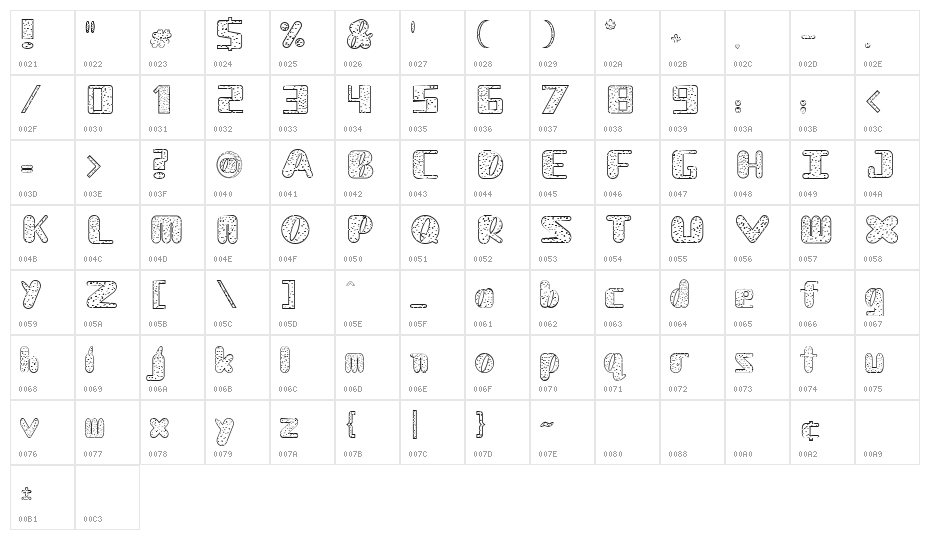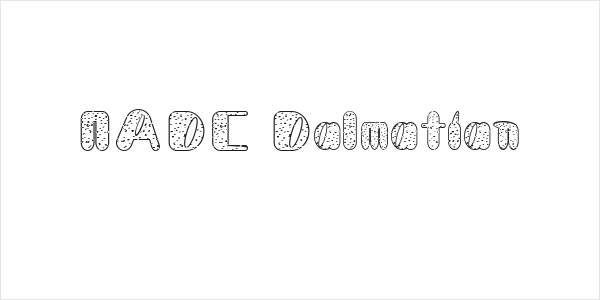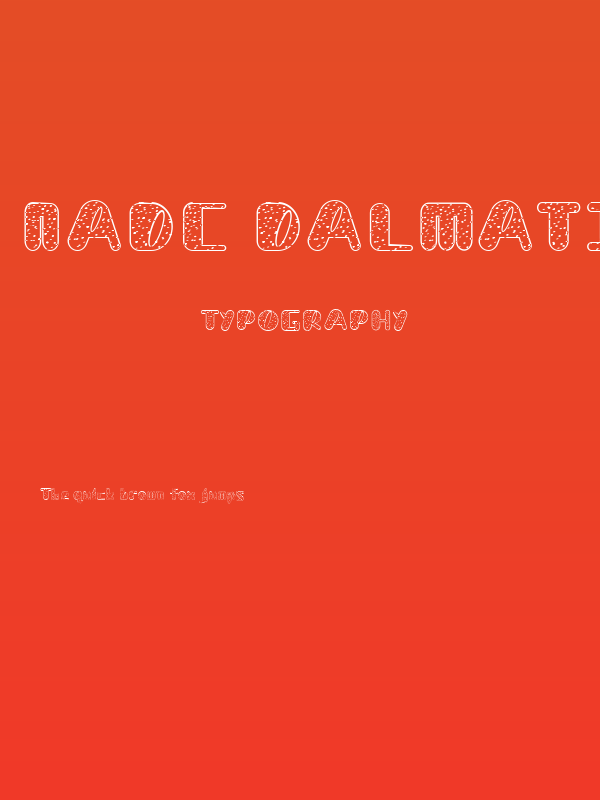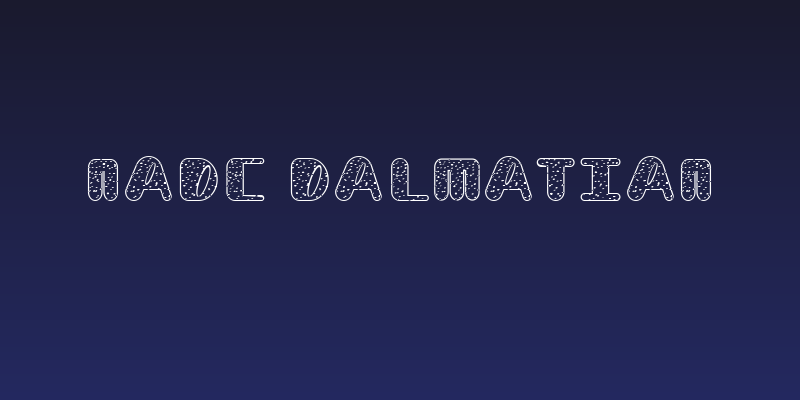
NADC Dalmatian Font
NADC Dalmatian Description
This playful and decorative font features a unique spotted pattern reminiscent of a Dalmatian's coat. Each character is bold and rounded, with a whimsical touch that adds a sense of fun and creativity. The spots are irregularly distributed, giving the font a dynamic and lively appearance. The uppercase and lowercase letters maintain a consistent style, with smooth curves and a slightly condensed form. Numbers and special characters are equally adorned with the distinctive spotted design, ensuring a cohesive look across all elements. This font is perfect for projects that require a touch of humor and personality.
Overall StylePlayful, Whimsical
Proposed ProjectsIdeal for children's books, playful branding, party invitations, and creative posters.